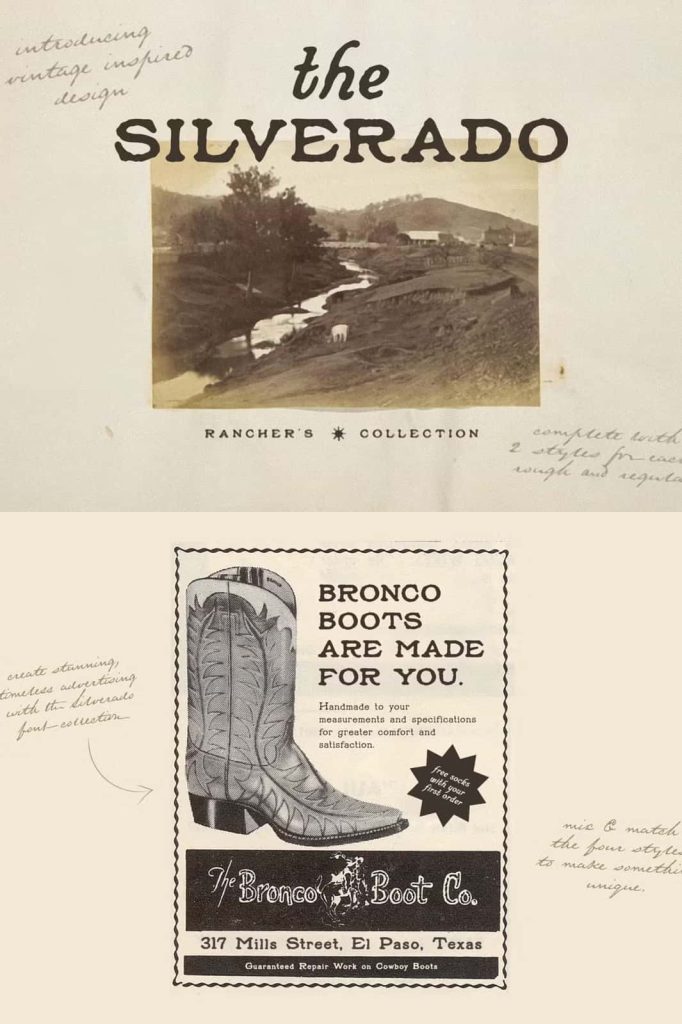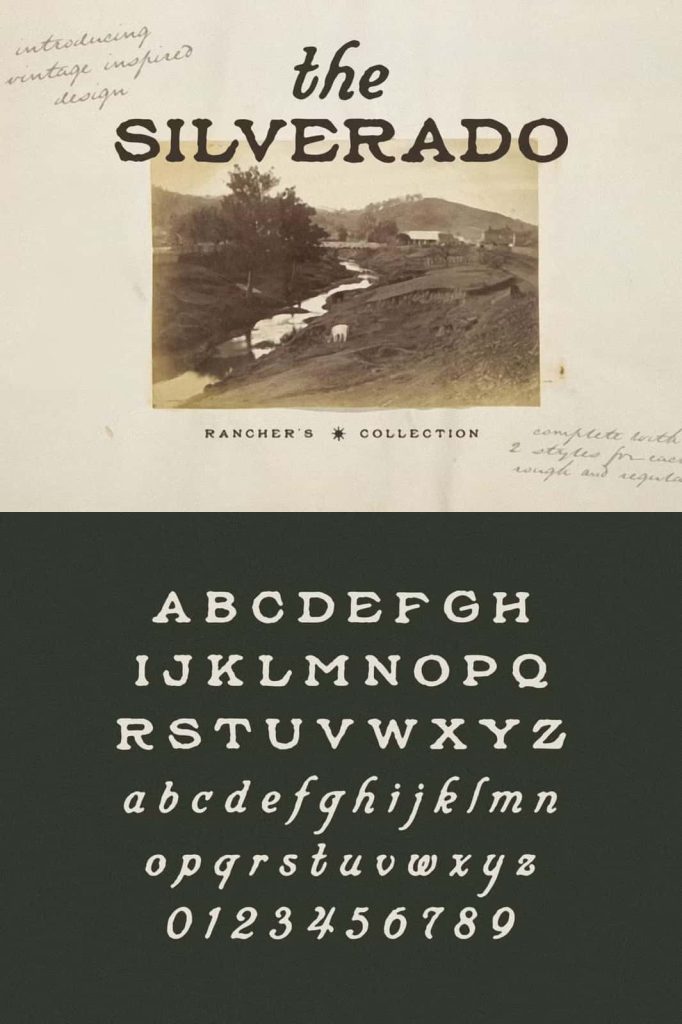
Silverado: The Ultimate Western Vintage Font Collection
Silverado is a powerful Western vintage font collection designed to bring authentic character, bold style, and handcrafted quality into modern design projects. Inspired by classic Western signage, old saloon lettering, and rugged Americana aesthetics, Silverado delivers a timeless visual presence that feels confident, expressive, and unforgettable. Handcrafted by Bruised Goods, this font collection reflects a deep appreciation for traditional typography while offering modern versatility for today’s creative needs.